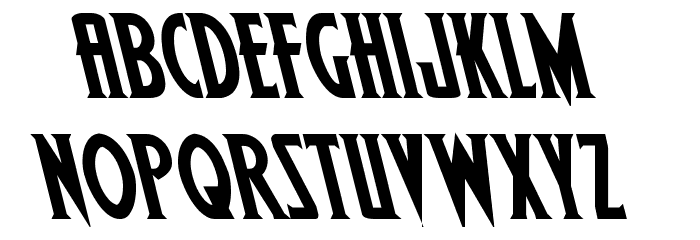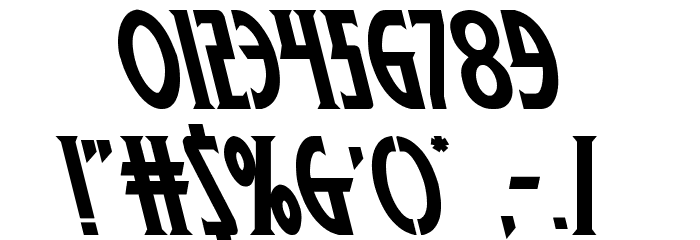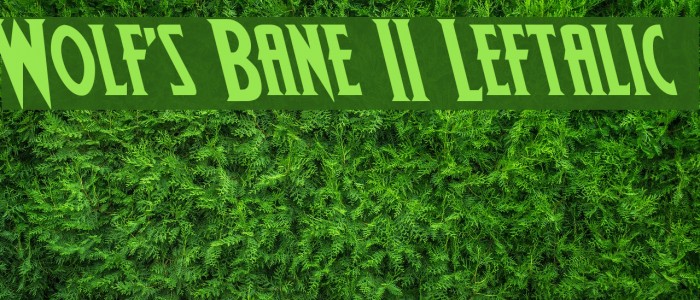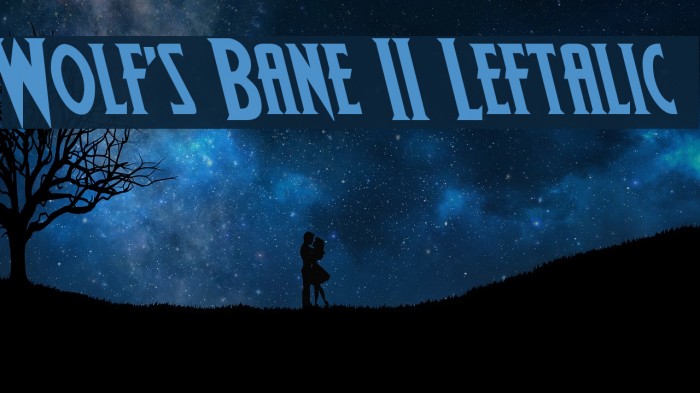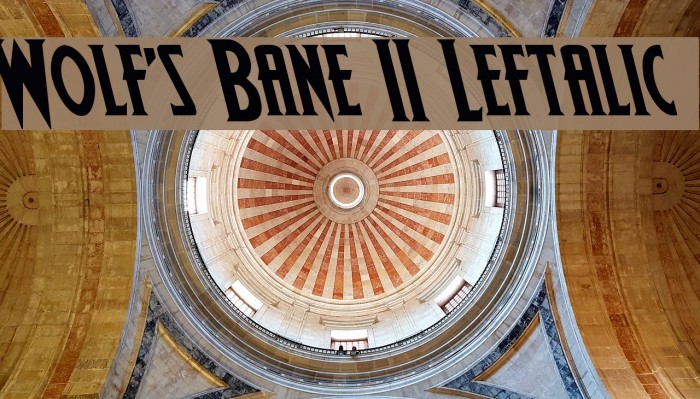
Wolf's Bane II Leftalic Font
This font features a bold and dynamic style with sharp, angular lines and a distinct leftward slant, giving it a sense of movement and energy. The uppercase and lowercase letters are consistent in their angularity, creating a cohesive look. The numbers and special characters maintain the same boldness and angularity, ensuring uniformity across all glyphs. The overall design is striking and attention-grabbing, making it suitable for projects that require a strong visual impact.
A bold, angular font with a leftward slant, ideal for dynamic designs.
- Font: Wolf's Bane II Leftalic
- Proposed Projects: This font is perfect for posters, album covers, video game titles, and any project needing a bold, energetic aesthetic.